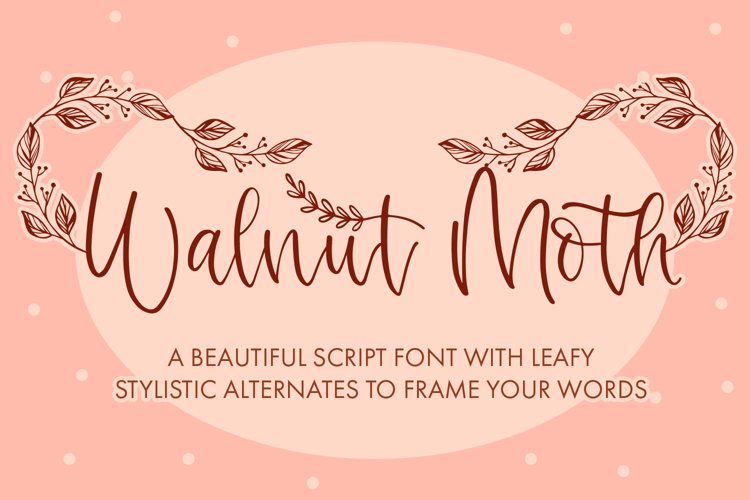
Walnut Moth - Match with leaf swashes
Walnut Moth will offer you a super cute script font with 5 different stylistic alternates for the lower cases and 2 stylistic alternates for the upper cases. You can use the different stylistic alternates to frame your words or phrases. Walnut Moth is a perfect fall/autumn font for all your cozy DIY:s. This font will definitely spark up you designs and diy:s for your personalised projects and will be a perfect gift for those who love fall/autumn as much as you.
- Walnut Moth - Comes with Uppercase A-Z and lowercase a-z letters, 0-9 numbers, stylistic alternates, limited punctuation and supports Western European Languages